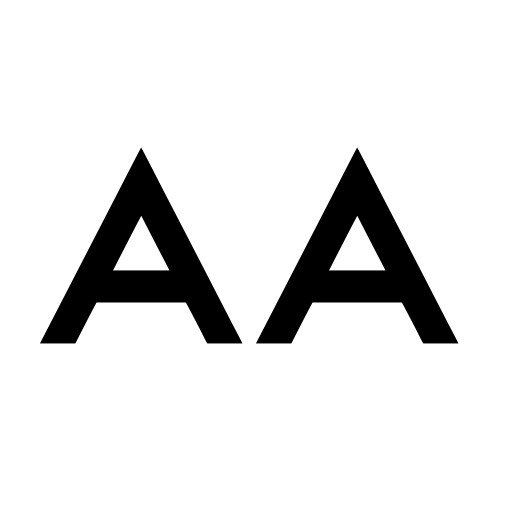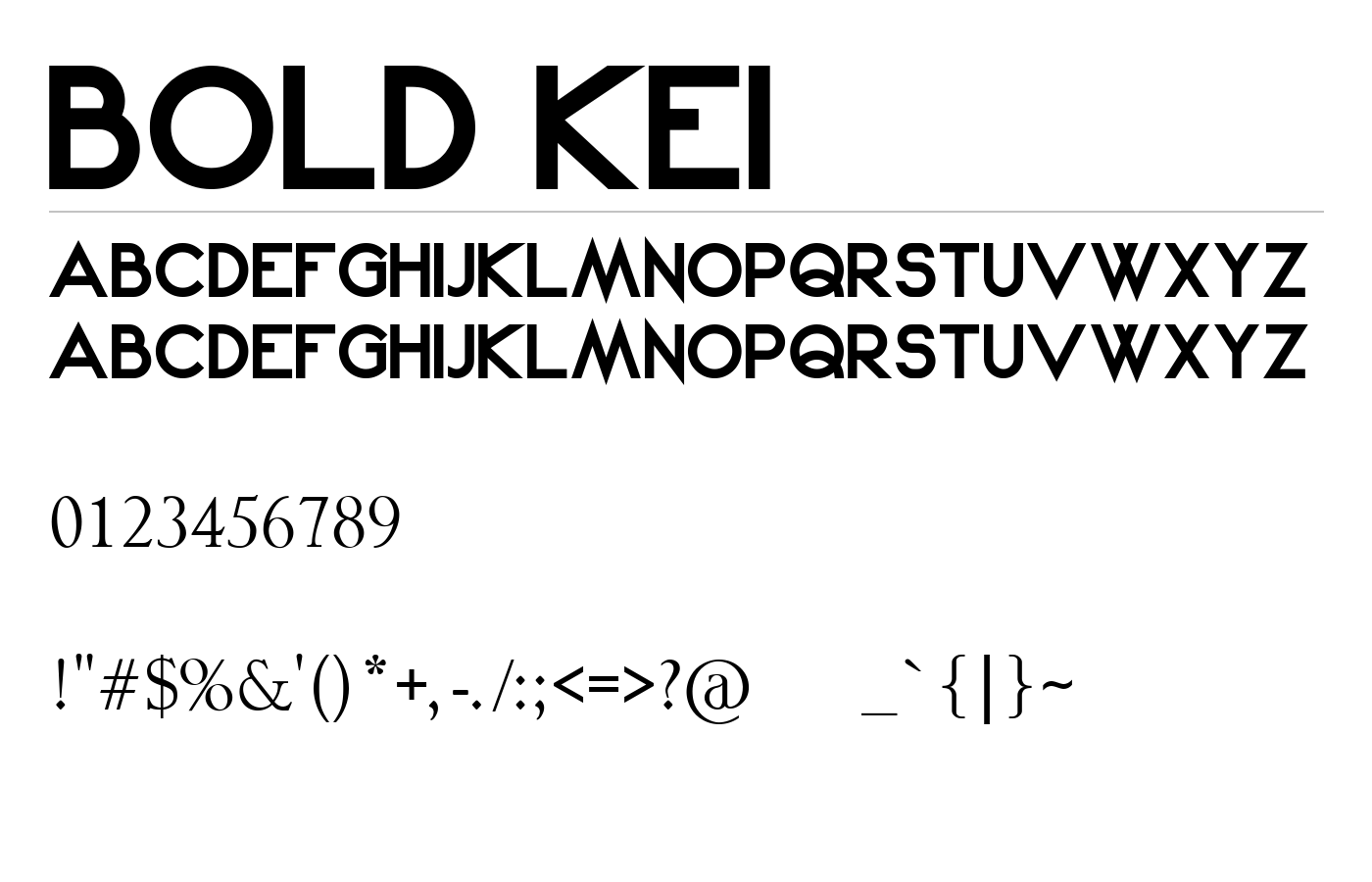
Bold Kei Font is a striking sans serif typeface characterized by its bold weight and geometric, angular shapes. Its uppercase letters feature sharp, clean edges and a modern, slightly condensed structure, making it suitable for bold headlines and branding that needs a strong, contemporary look. The accompanying numerals and symbols are slender and elegant, adding a sophisticated contrast that enhances the font’s versatility for both display and creative design uses.
Bold Kei Font